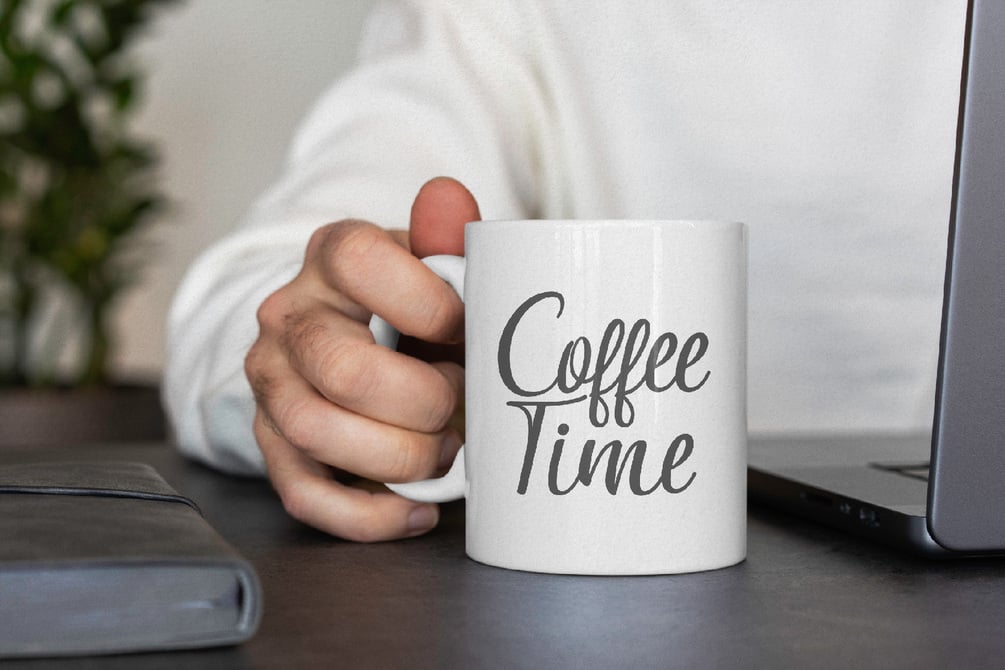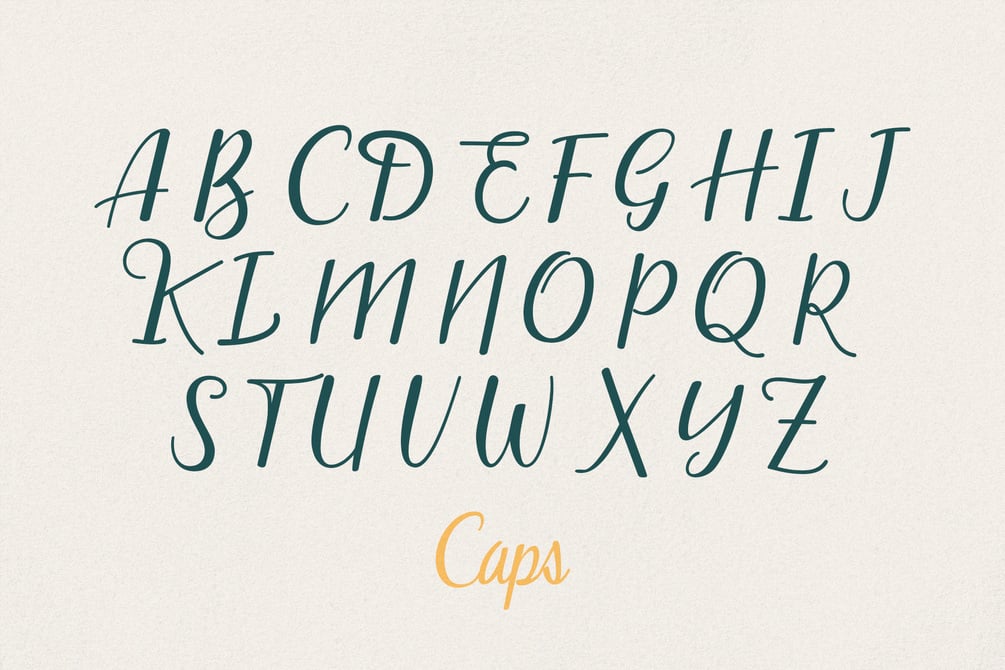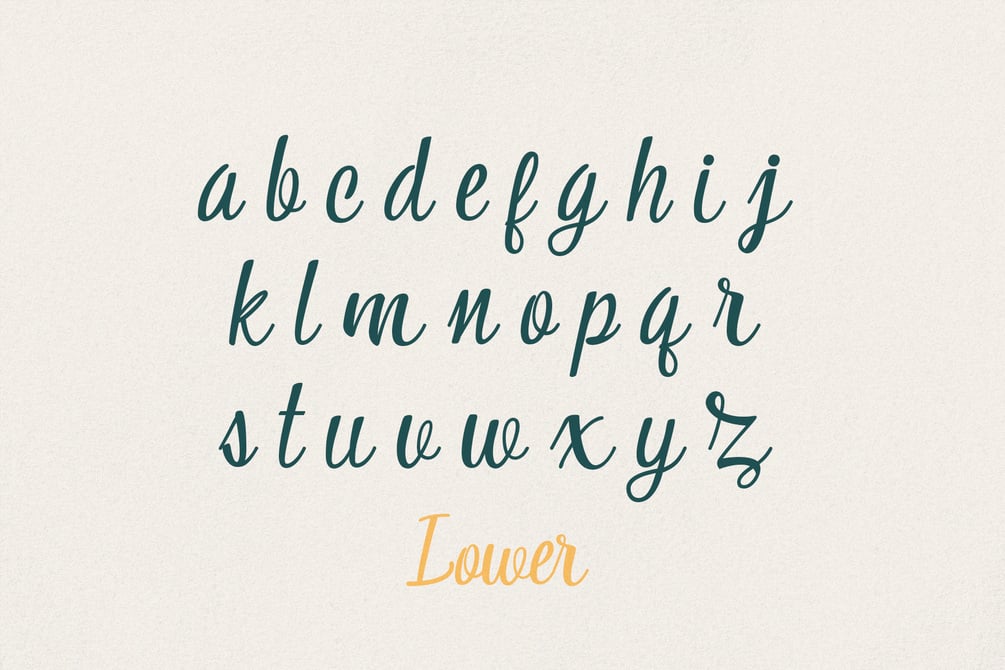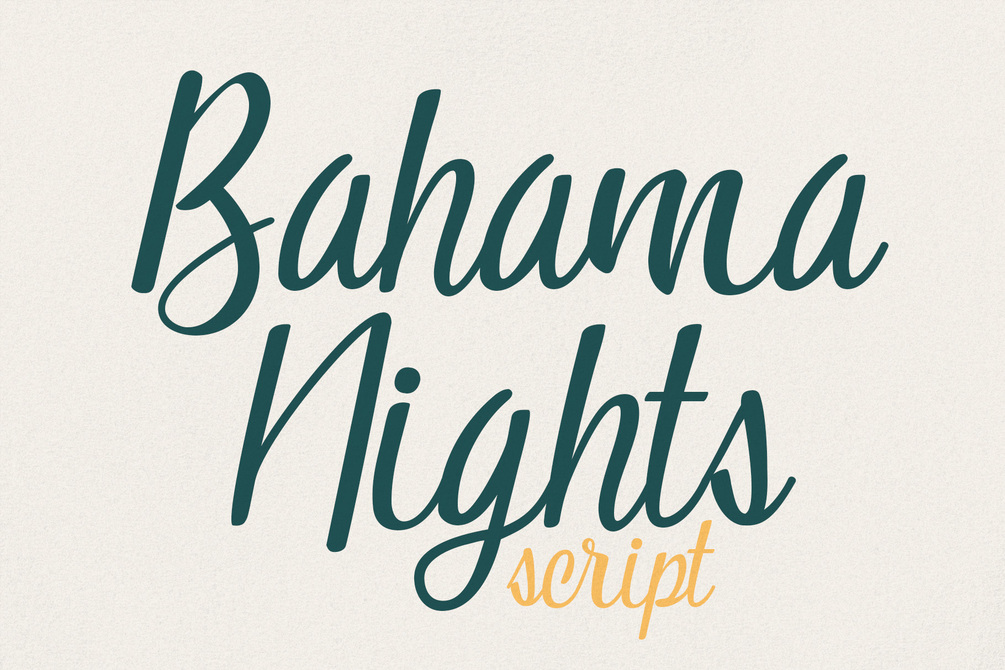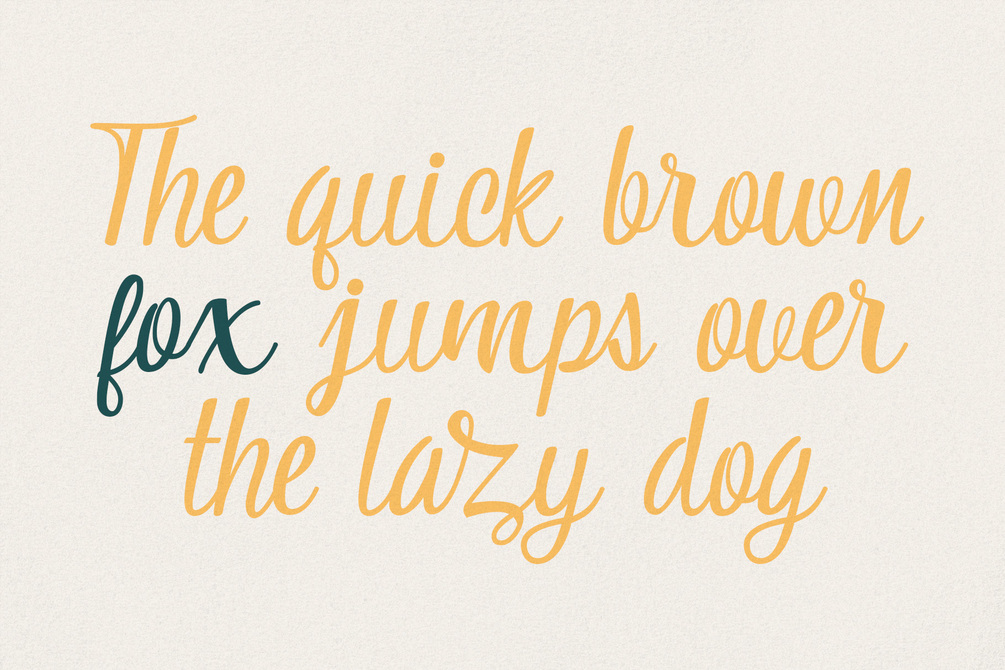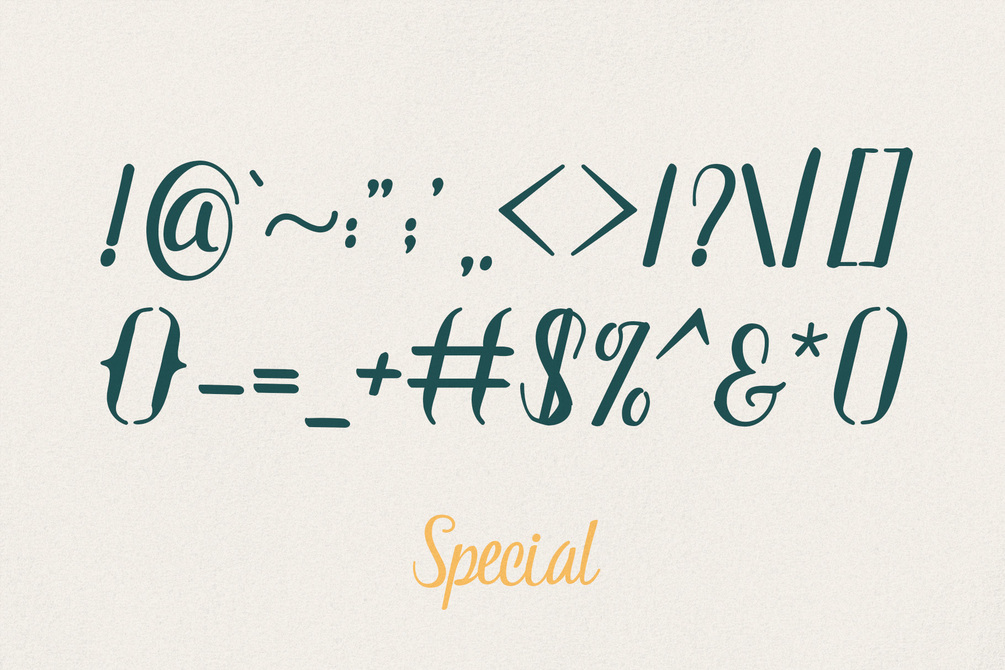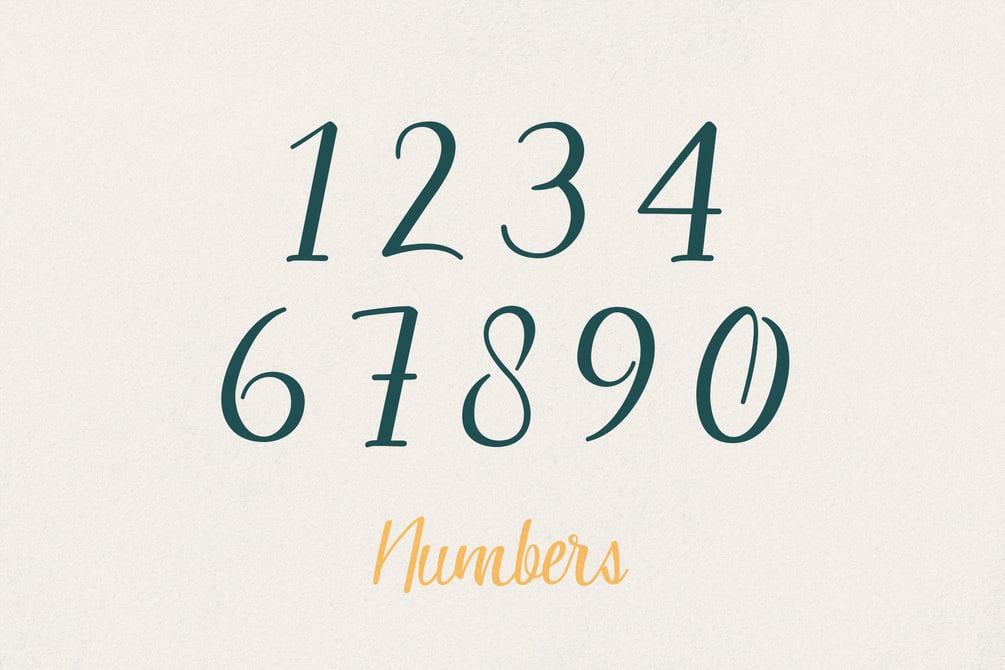
Bahama Nights Script
Bahama Nights is a graceful script typeface made with love. Its beautiful cursive style can be used to create gorgeous wedding invitations, elegant packaging, advertising, eye-catching social media posts, stationary art, fabulous logos, and much more!
If your project requires the vibe of real hand lettering, then Bahama Nights is for you.